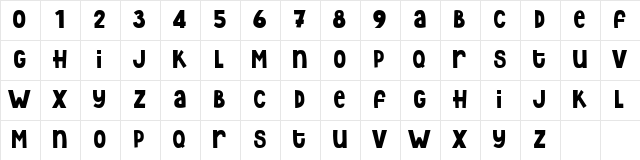
Rezdone Regular
Designer: Ari Liari
Design Context for Rezdone
Rezdone is a composed and adaptable typeface that performs quietly and consistently across a wide range of design contexts.
Pro Tip: Use Rezdone in both headline and body roles to test its range before committing to a single application.